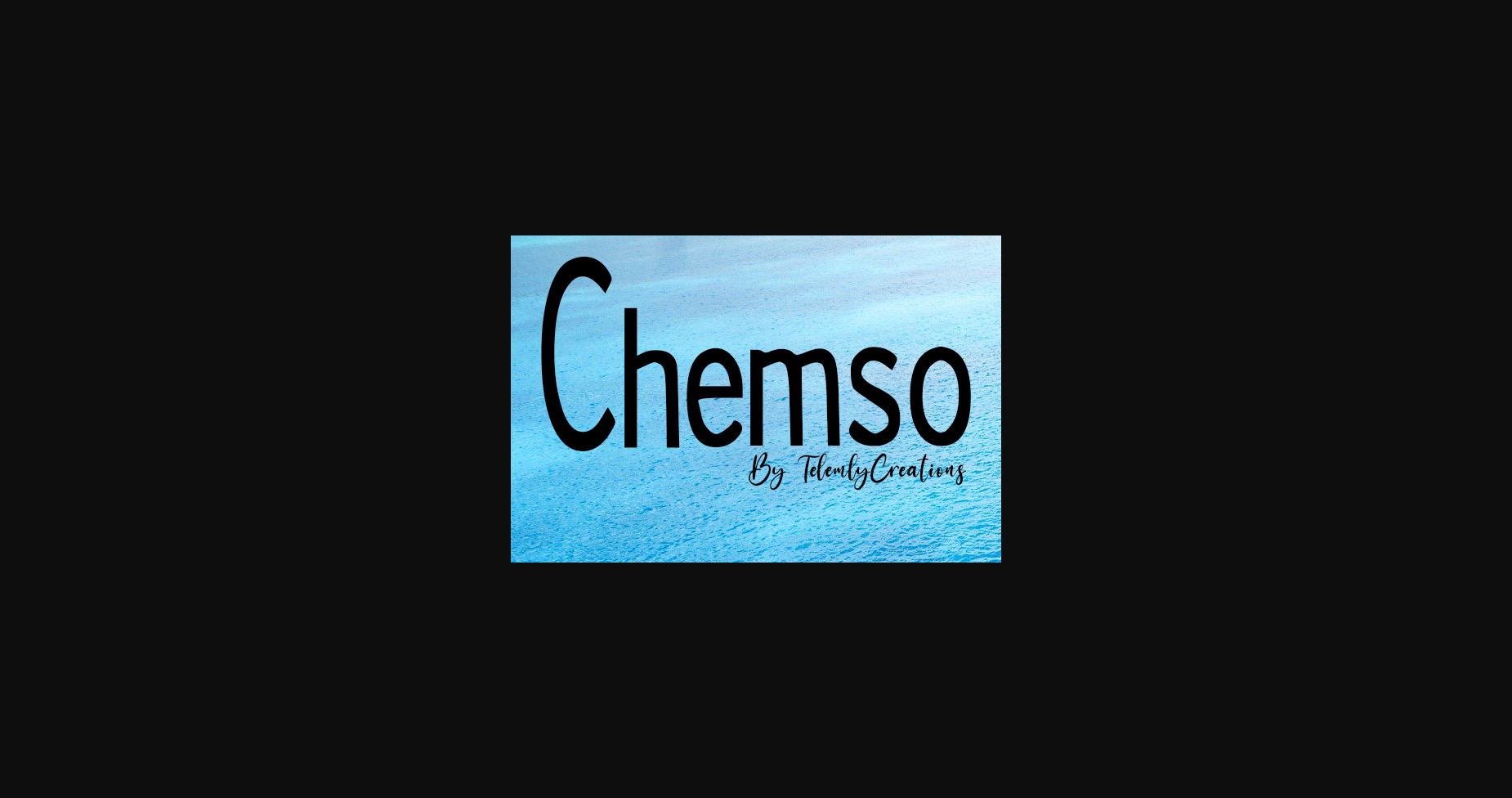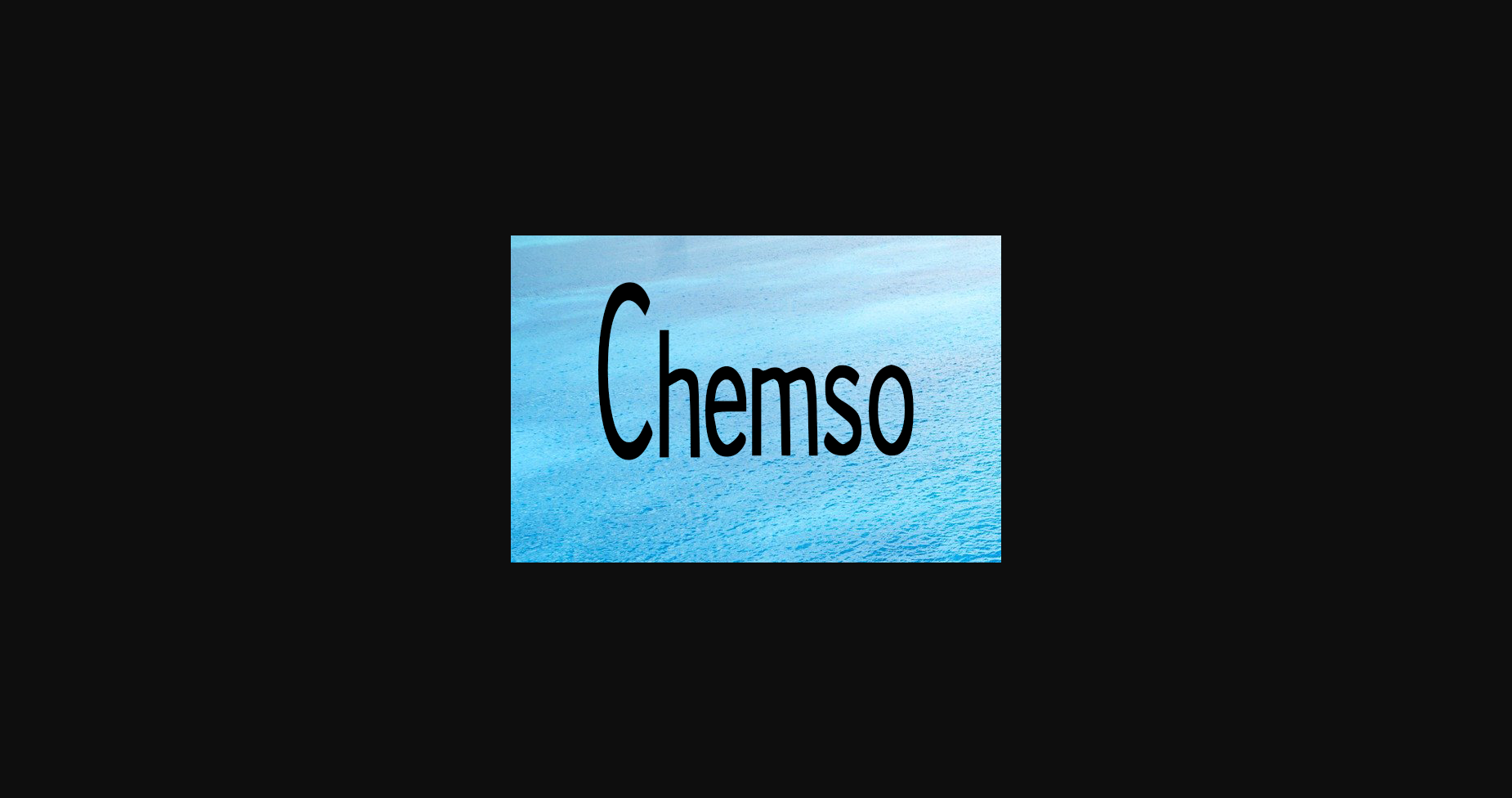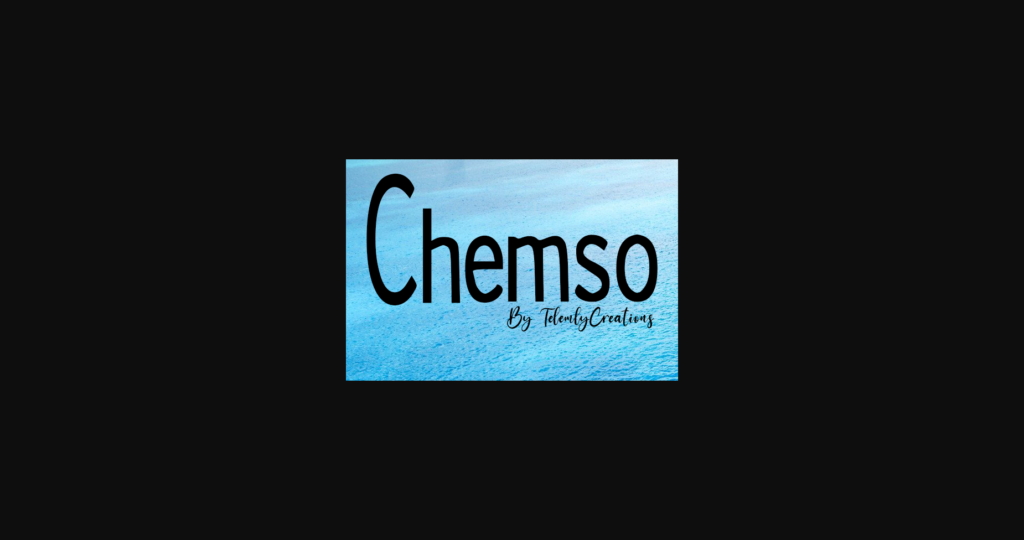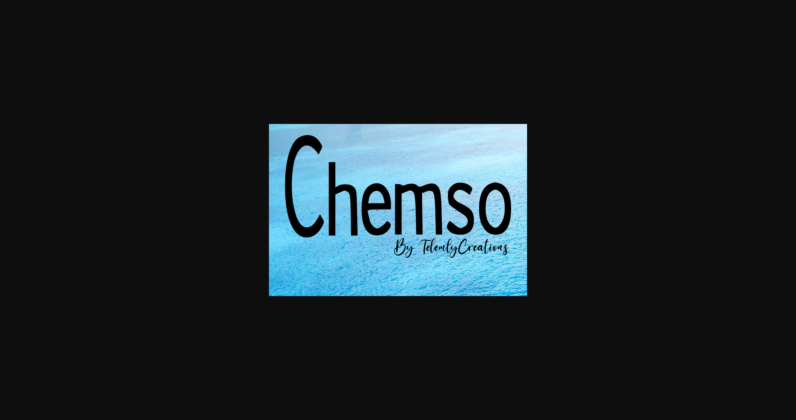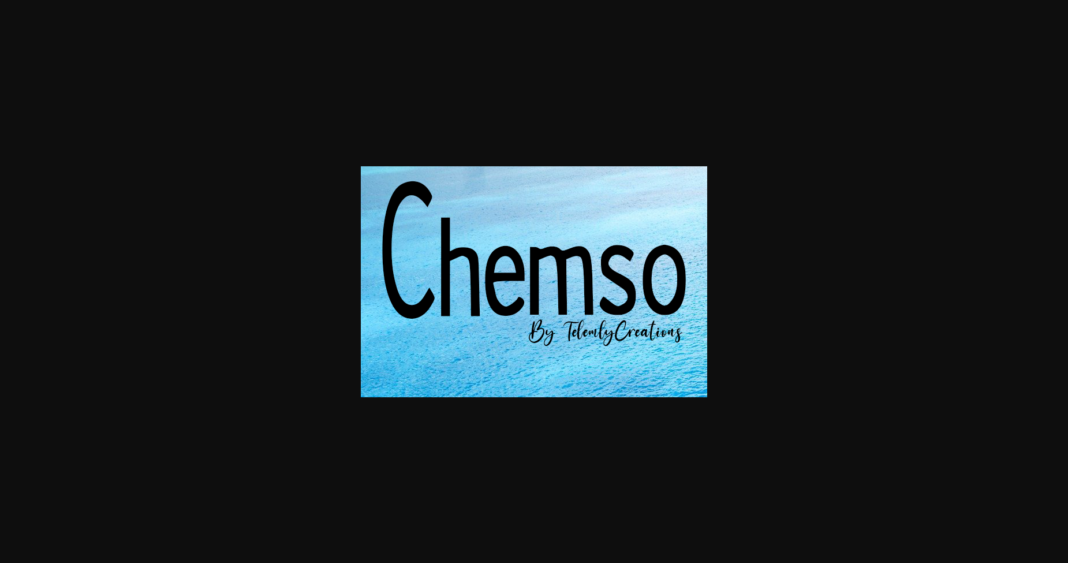
Chemso Font
About Chemso Font
Chemso is a simple and clean sans serif font. This beautiful and professional typeface is suitable for film posters, headlines, block letters, subheadings, logo designs, and so much more.